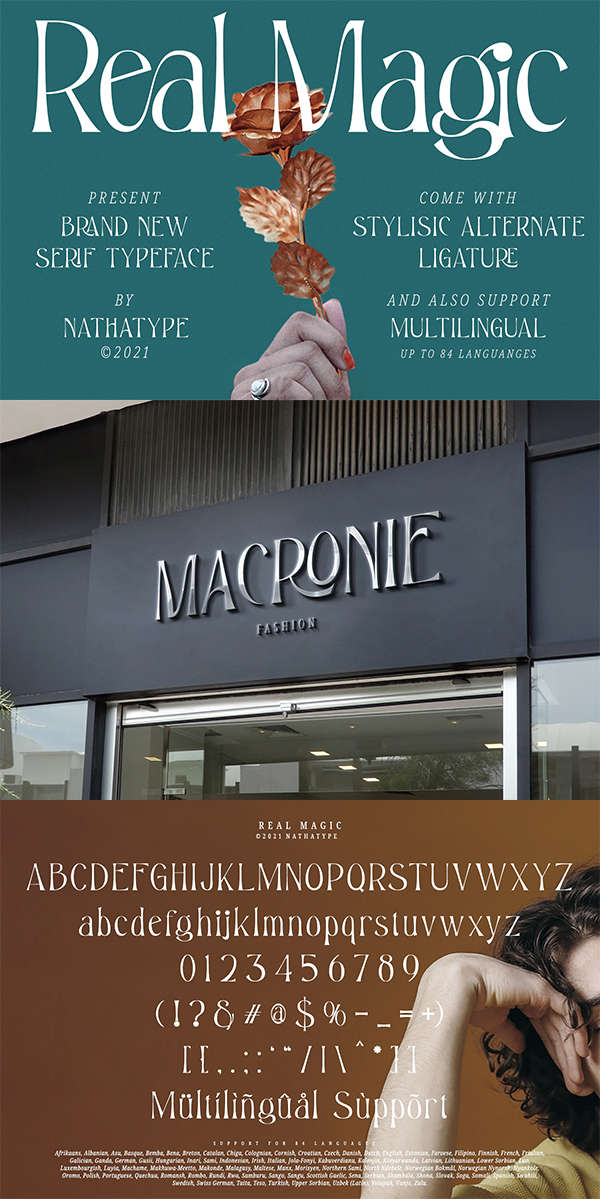
Real Magic Font
About Real Magic
Real Magic designed primarily to bring out a modern and stylish view of what you make. The font is special in that one word can be written in a million different ways.
• Alternates